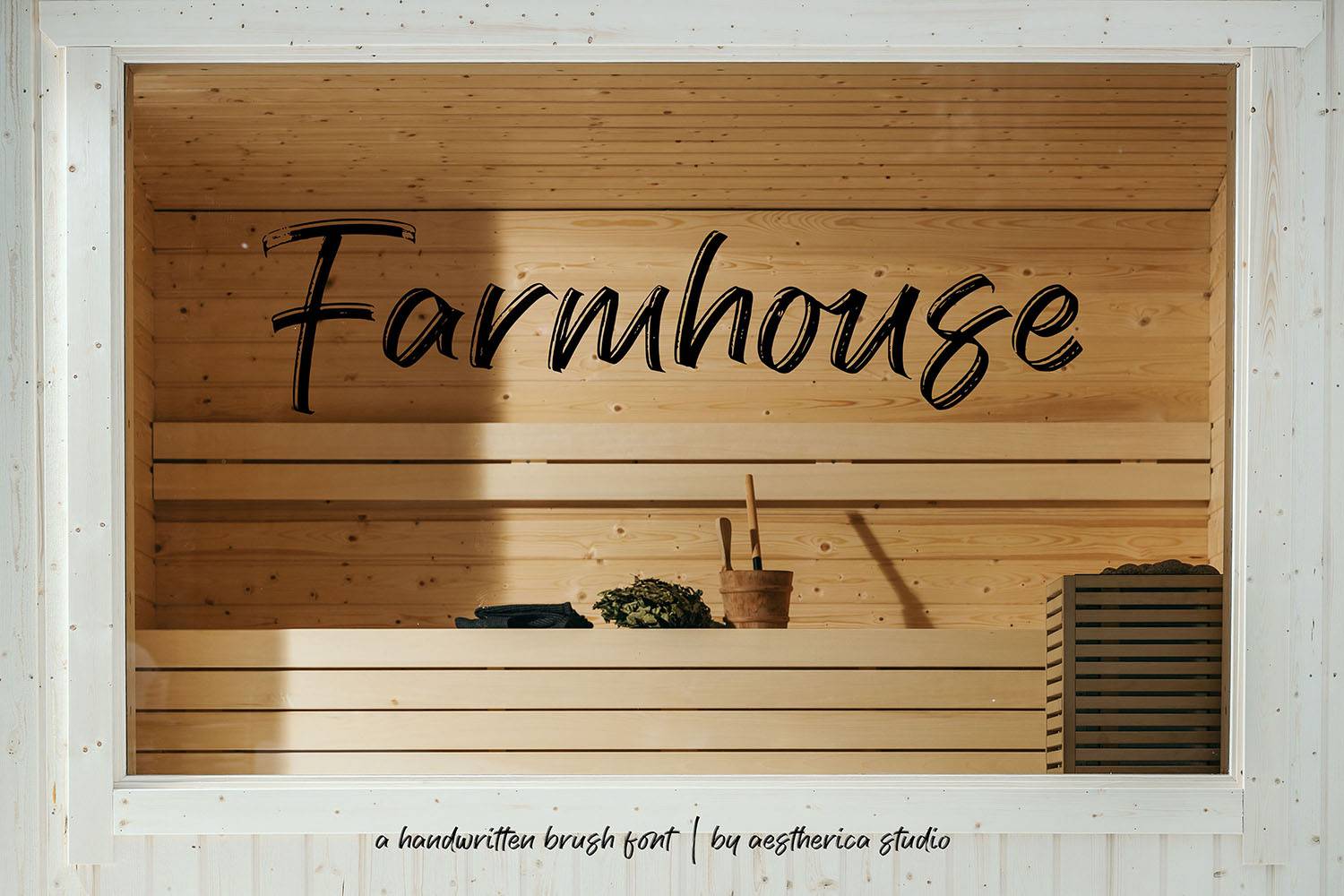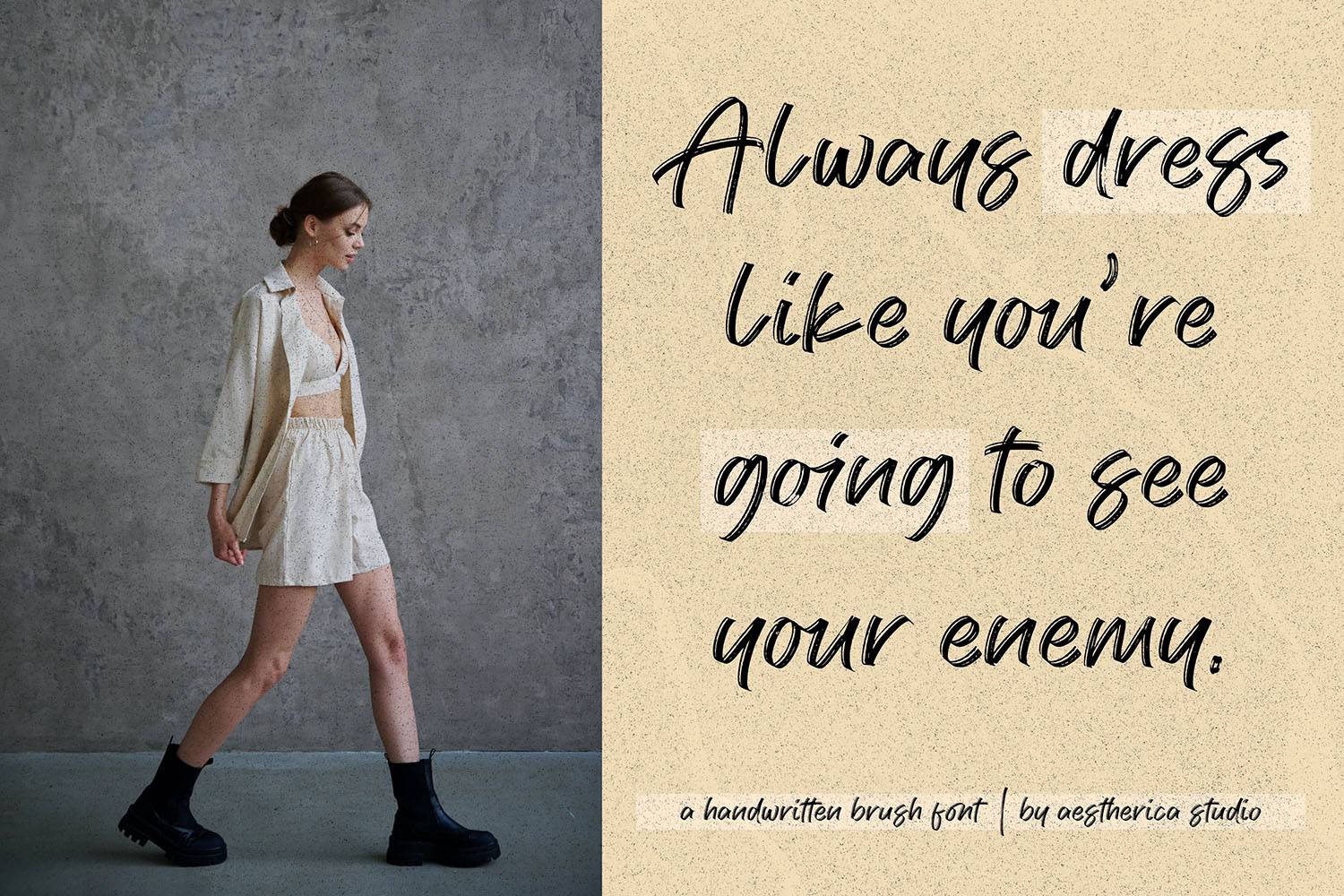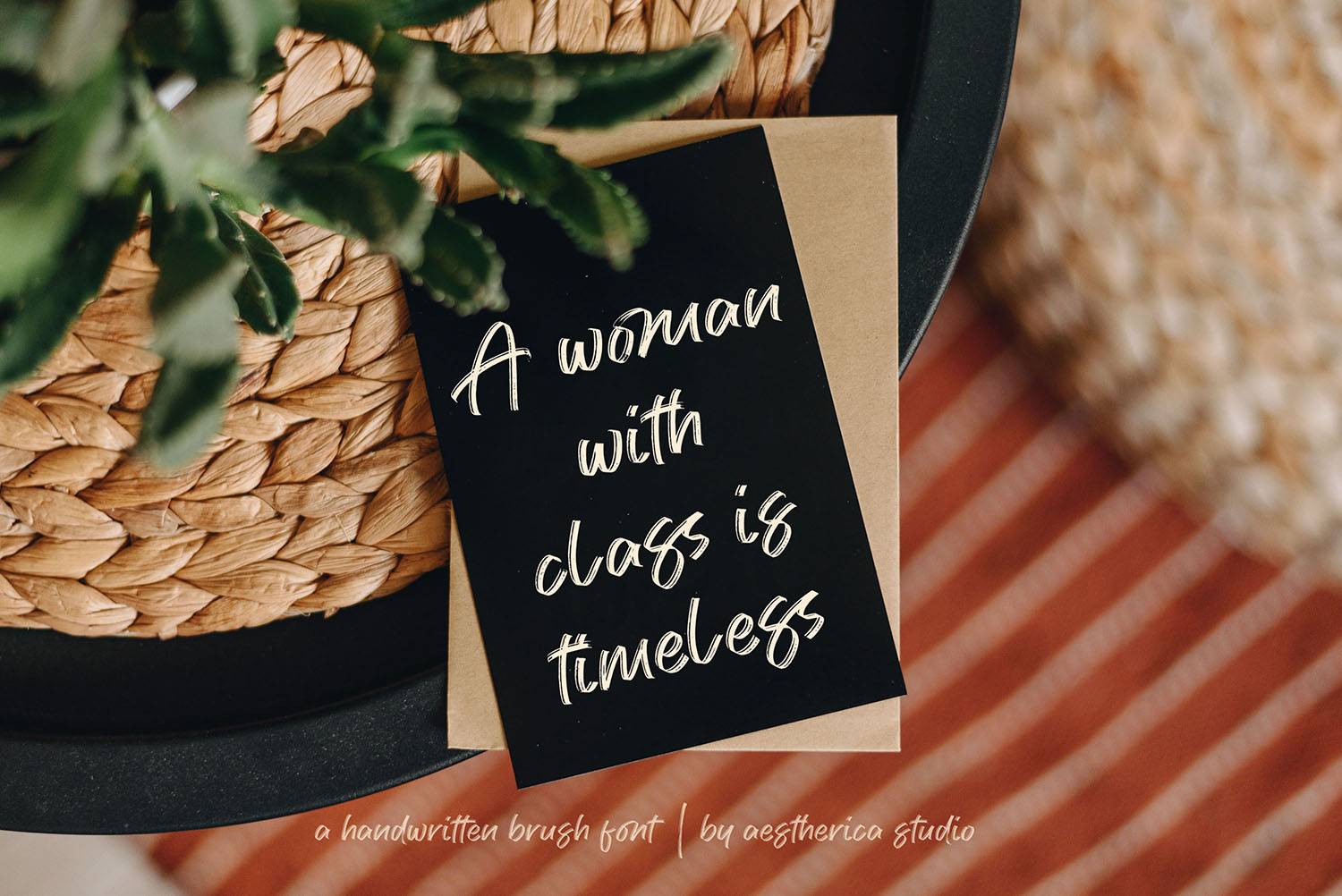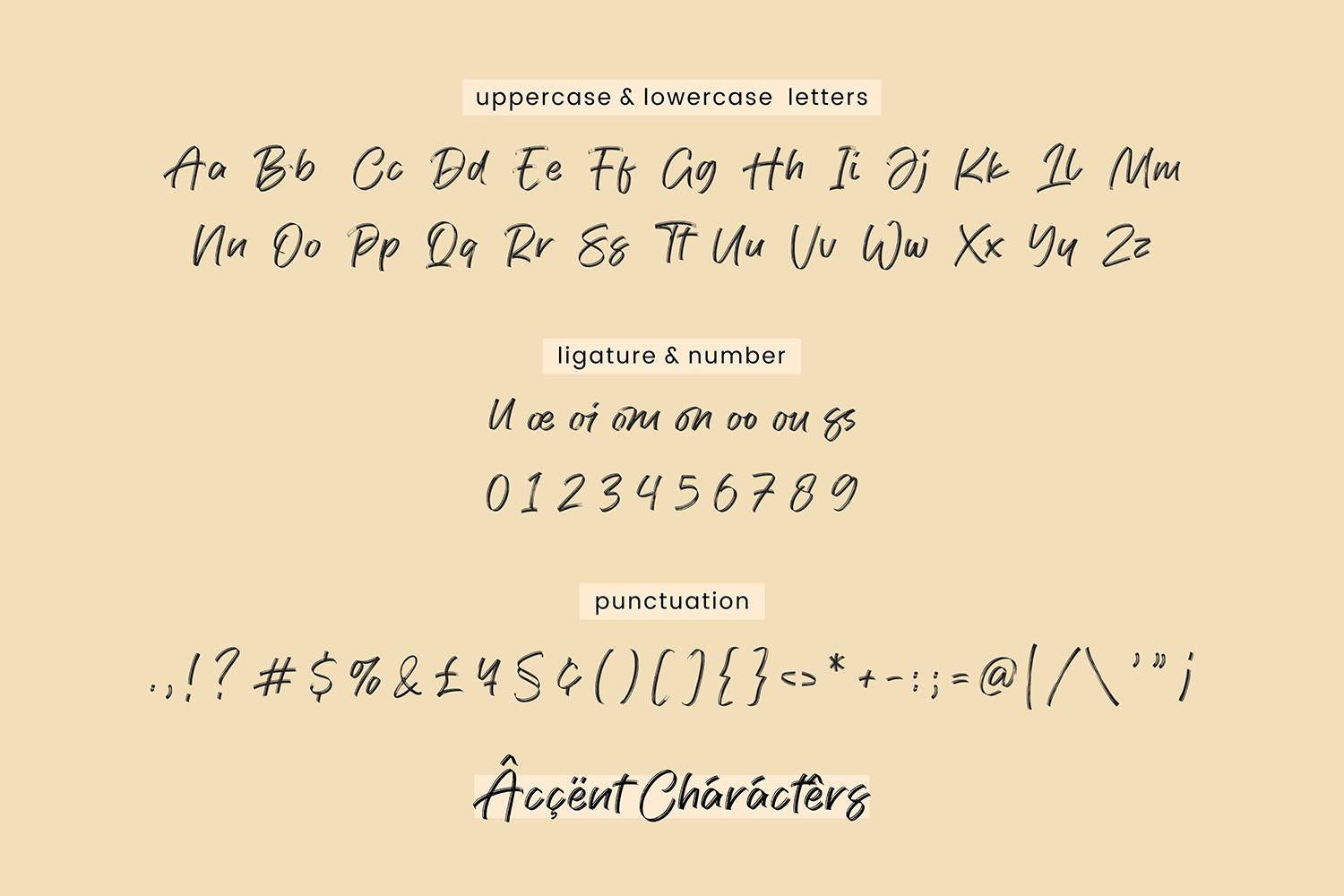
Modesty is a lively, handwritten script font with a casual and artistic vibe, featuring medium weight strokes and dynamic brush-like textures. Its flowing uppercase and lowercase letters, combined with slightly slanted forms and lively counters, create an energetic yet approachable feel, perfect for creative branding, invitations, and expressive headlines. This font works well where a personal, handcrafted touch is desired, bringing warmth and originality to any design.
Modesty Font
About Modesty Font